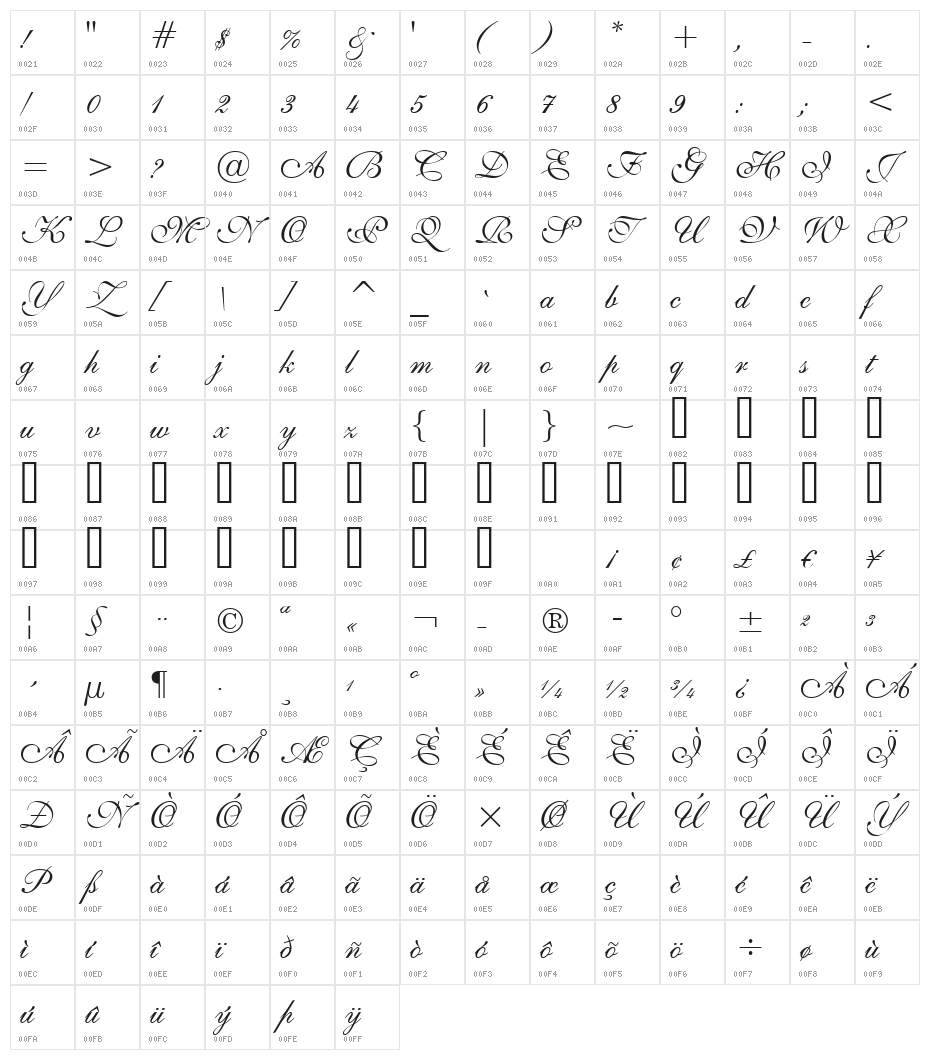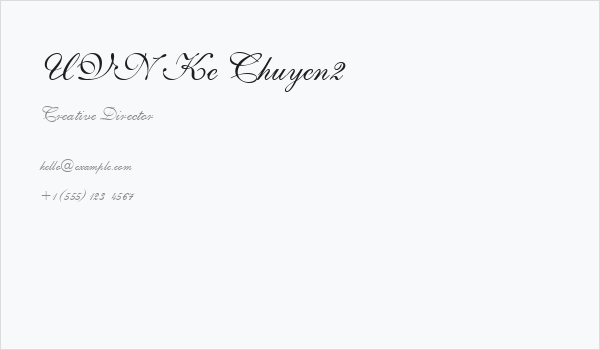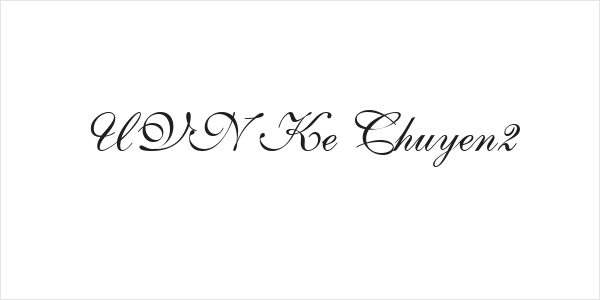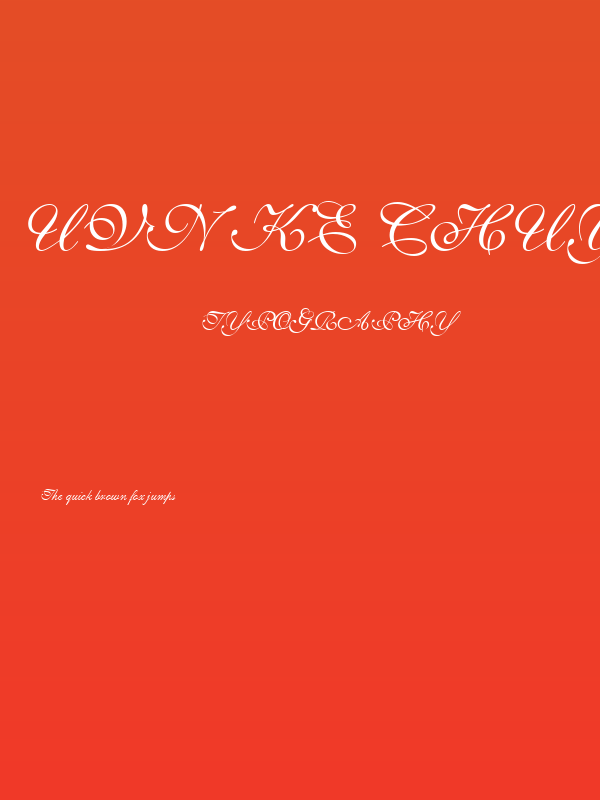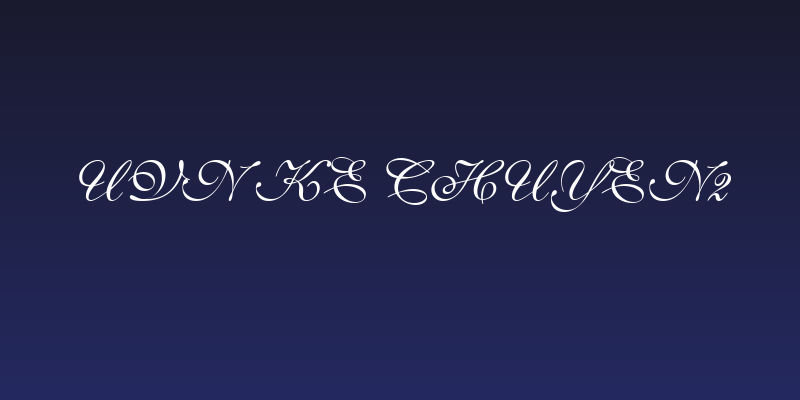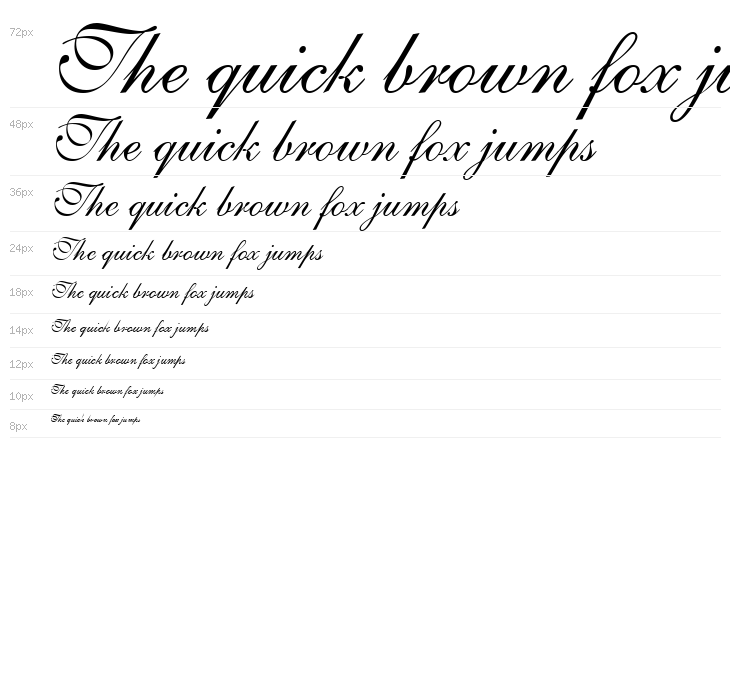
UVN Ke Chuyen2 Font
UVN Ke Chuyen2 Description
This elegant script font features a flowing, cursive style with intricate loops and swashes, giving it a sophisticated and graceful appearance. The uppercase letters are particularly ornate, with elaborate flourishes that add a touch of luxury and refinement. The lowercase letters maintain a consistent slant, enhancing the fluidity and continuity of the text. The numerals are stylish yet readable, complementing the overall aesthetic. Special characters are designed with the same attention to detail, ensuring a cohesive look across all glyphs. This font is perfect for projects that require a touch of elegance and class.
| Use Case | Headlines, Invitations, Branding |
| Proposed Projects | Ideal for wedding invitations, luxury branding, elegant stationery, and decorative headlines. |